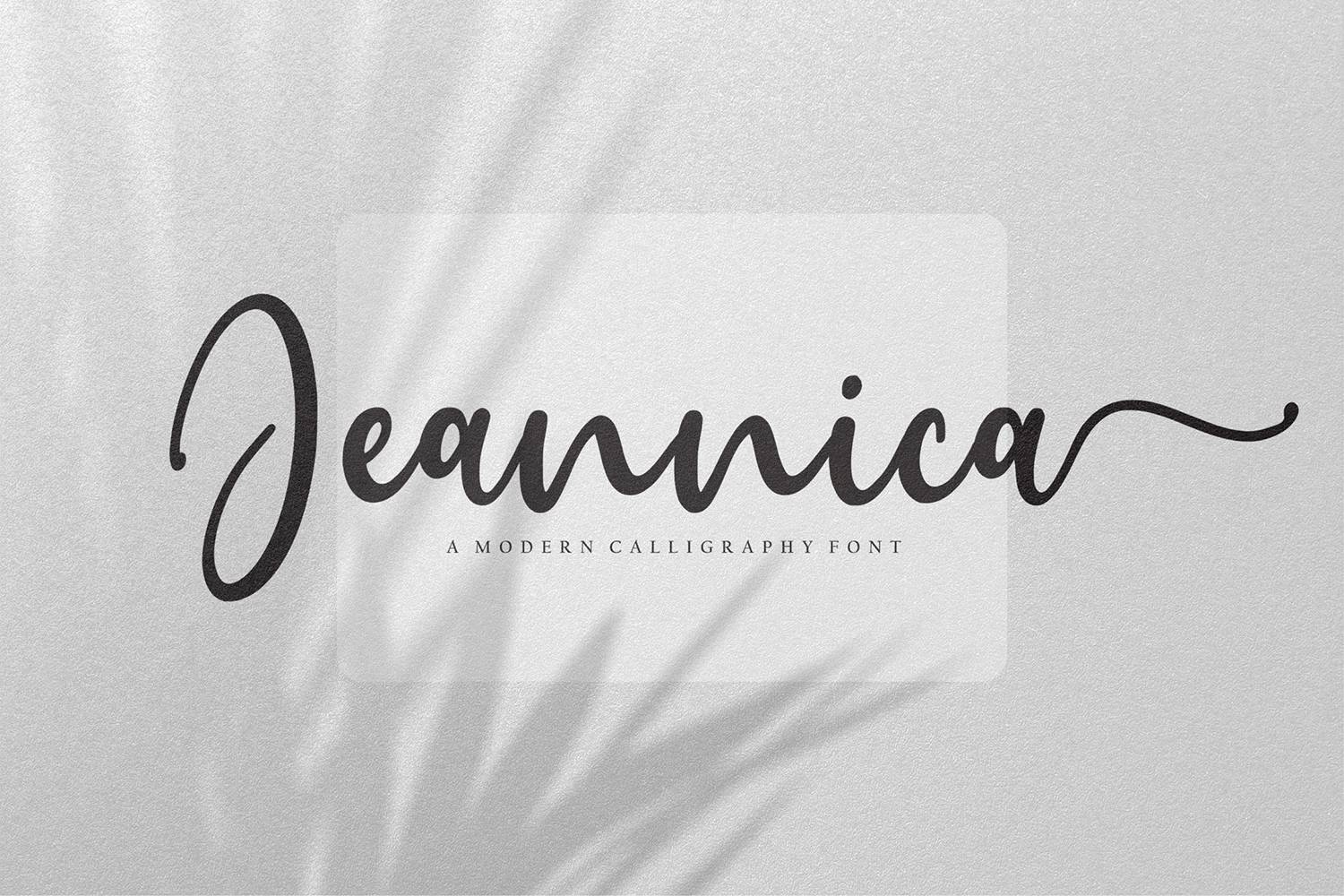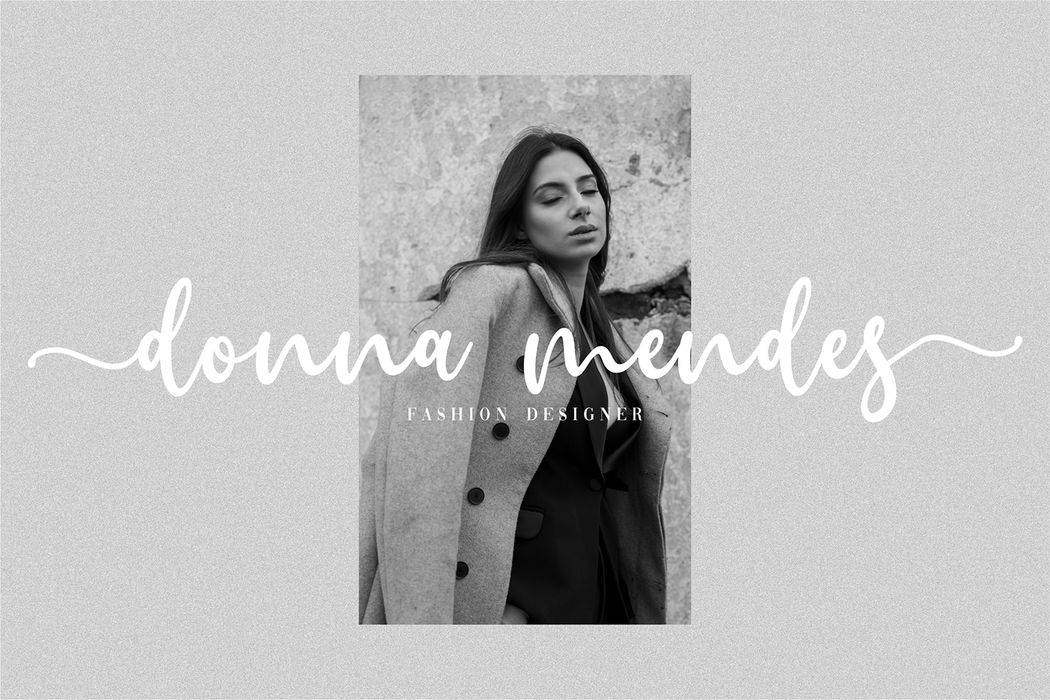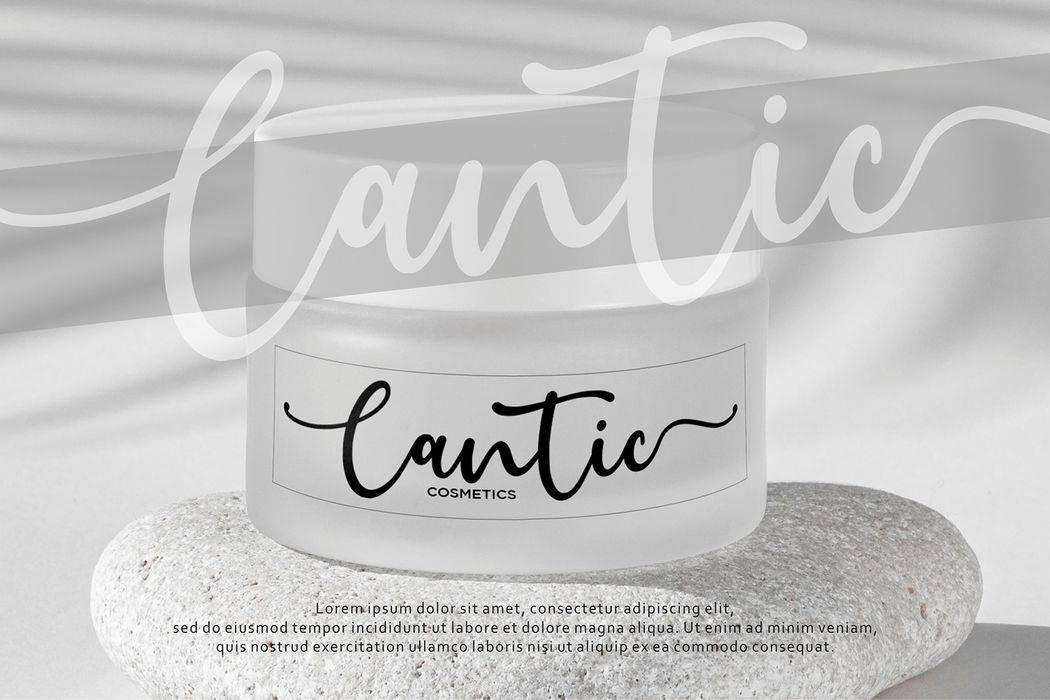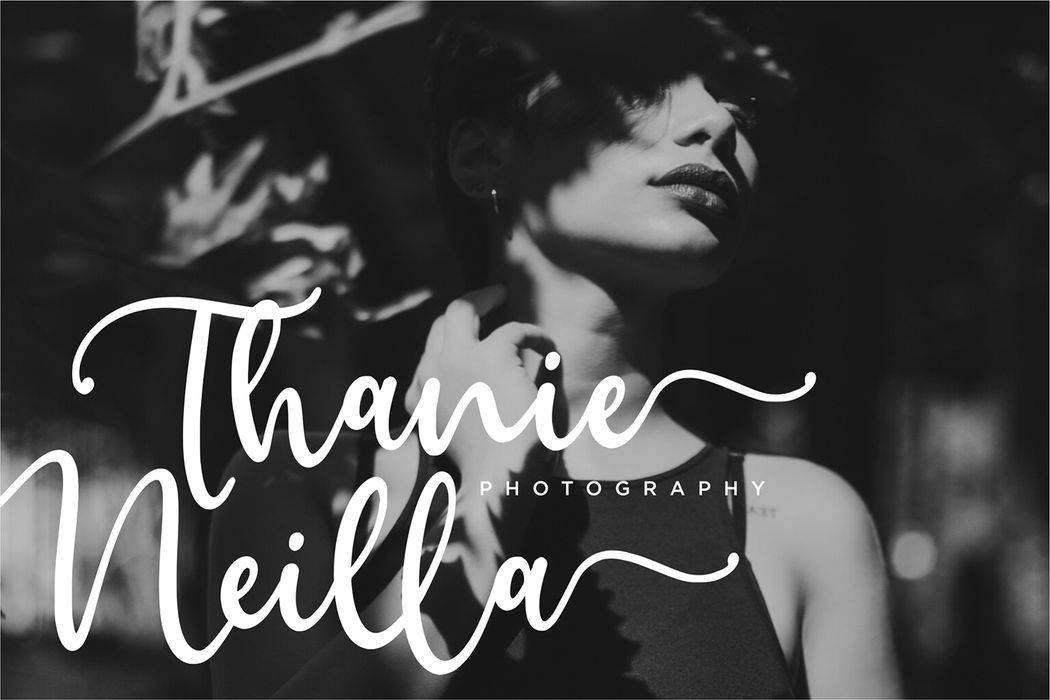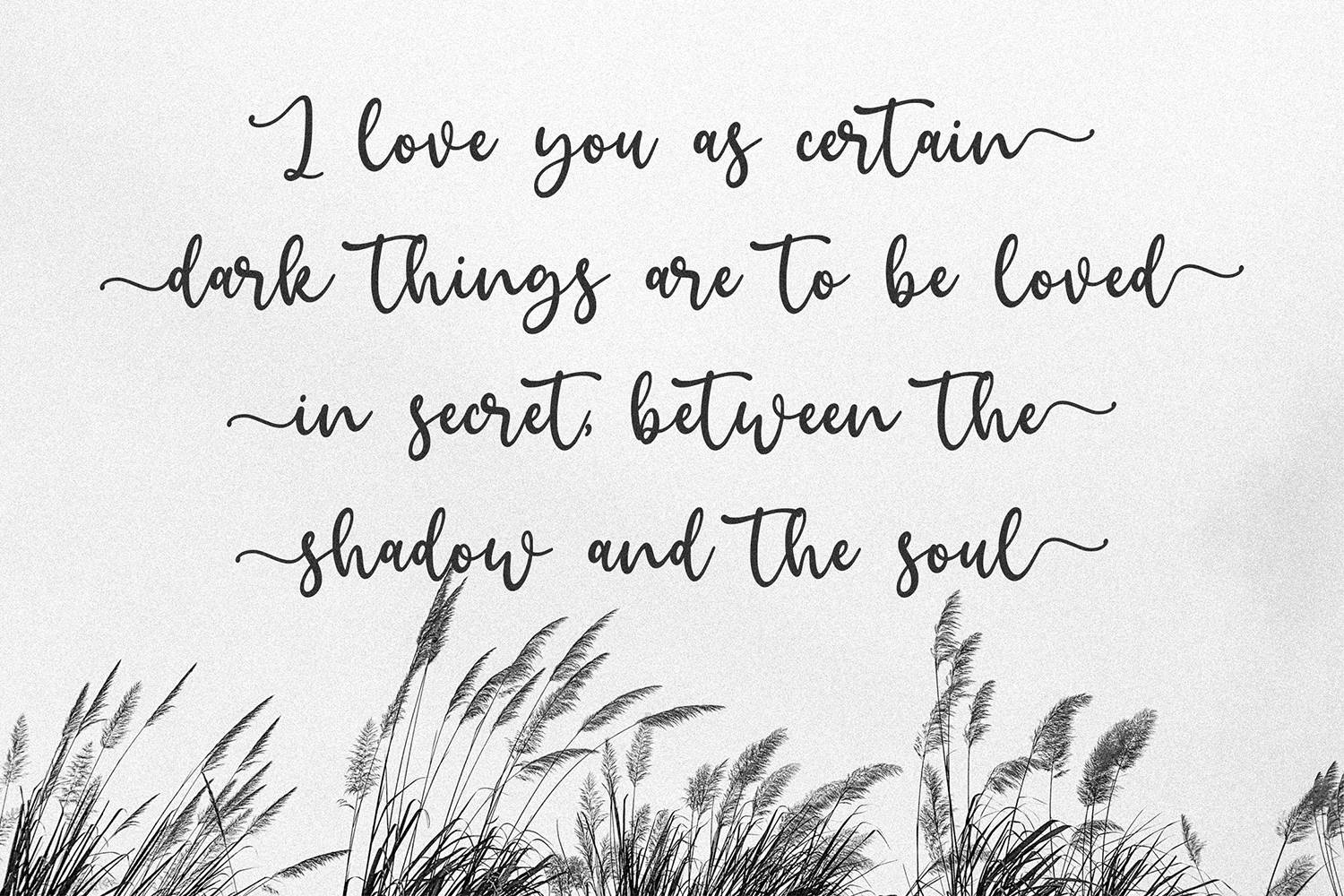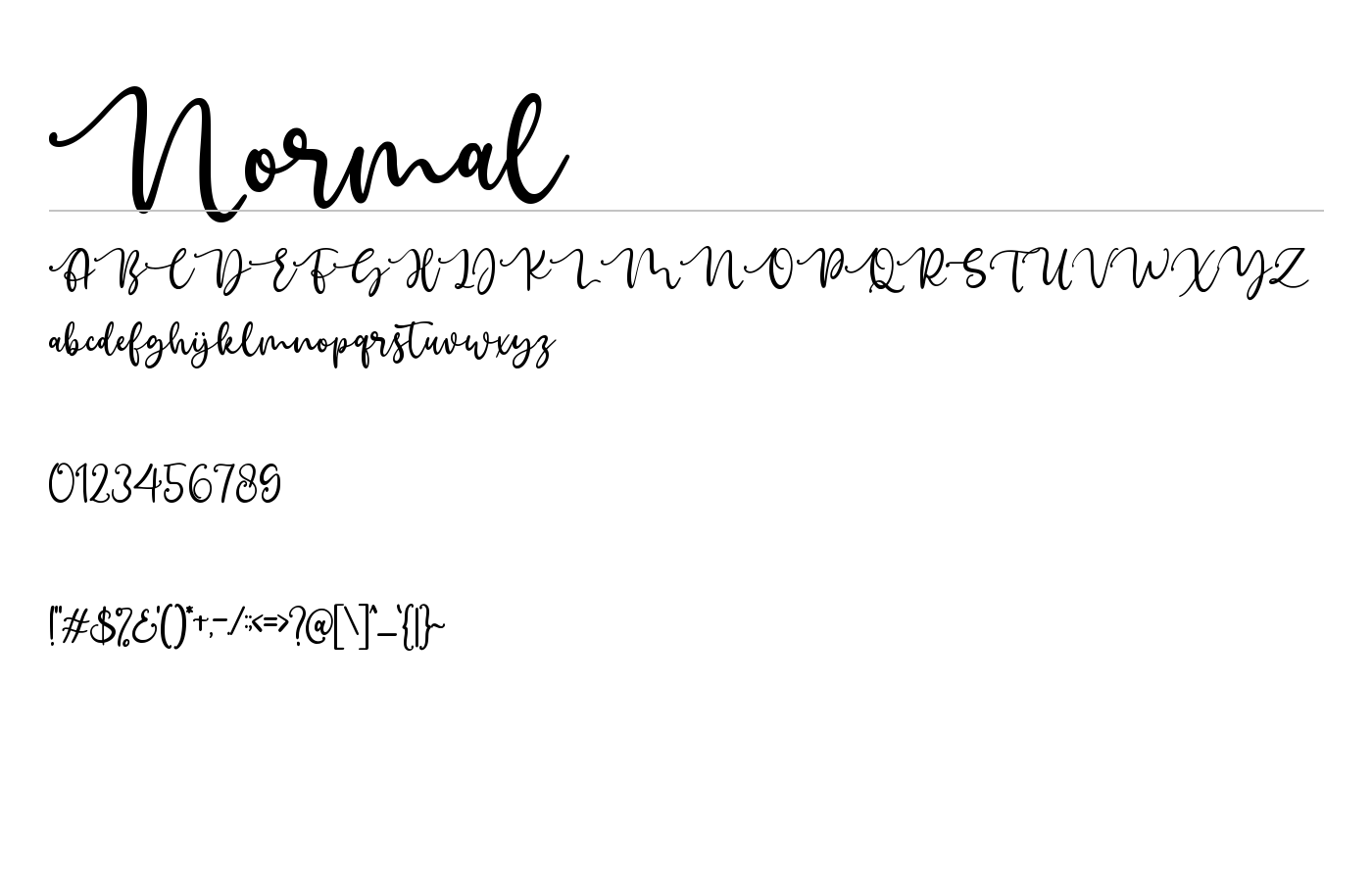
Jeannica is a delicate, script-style font with a natural, handwritten feel that combines playful elegance with a casual vibe. Its thin strokes, flowing letterforms, and distinctive loops make it ideal for creative designs, personal branding, invitations, and feminine or artistic projects where a charming and approachable touch is desired. This font shines in headlines and decorative use, adding a warm, stylish personality without sacrificing readability.
Jeannica Font
About Jeannica Font